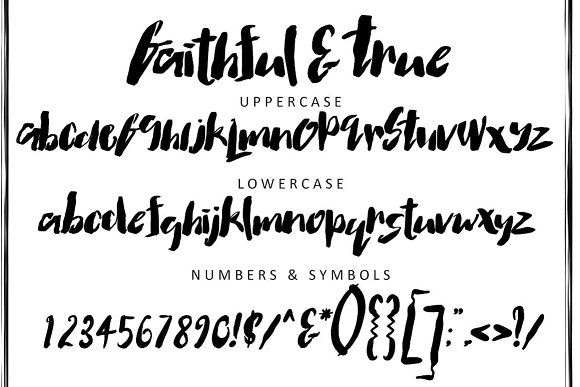
Discover the Charm of Faithful & True Font: A Handcrafted Gem by Creativeqube
In the world of typography, few fonts manage to capture the essence of elegance and charm as effectively as the Faithful & True Font. Created by the talented team at Creativeqube, this beautiful handcrafted font has been making waves among designers, crafters, and typography enthusiasts alike. In this article, we’ll delve into the unique characteristics of Faithful & True, explore its design elements, and discuss how it can elevate your design projects.
The Story Behind Faithful & True
Faithful & True is more than just a font; it’s a piece of art that brings a personal touch to any design project. Crafted with love and attention to detail, this font embodies the spirit of handcrafted typography, offering a distinctive alternative to the standard, machine-generated fonts commonly used in design. Creativeqube, the brainchild behind Faithful & True, aimed to create a font that not only stands out for its aesthetic appeal but also for its versatility and readability.
Design Elements and Characteristics
Faithful & True boasts a range of design elements that make it truly unique. Its handcrafted nature gives it a warm, organic feel that can add a personal touch to any project. Here are some of its key characteristics:
• Handcrafted Elegance: Each letterform in Faithful & True is carefully hand-drawn, giving the font its unique charm and character.
• Versatility: This font is designed to be versatile, making it suitable for a wide range of projects, from branding and packaging to personal stationery and digital content.
• Readability: Despite its decorative nature, Faithful & True maintains a high level of readability, making it perfect for both headings and body text.
• Unique Personality: The font exudes a sense of warmth and personality, allowing designers to convey a more human and approachable tone in their work.
Applications of Faithful & True Font
The applications of Faithful & True are vast and varied. Designers and crafters can use this font to add a touch of elegance and sophistication to their projects. Here are some popular uses:
• Branding and Logo Design: Faithful & True can help create memorable and impactful brand identities that stand out from the competition.
• Wedding and Event Stationery: The font’s elegant and romantic feel makes it perfect for wedding invitations, stationery, and event branding.
• Packaging Design: Add a personal touch to product packaging with Faithful & True, making your products more appealing to customers.
• Digital Content: Use Faithful & True in digital content such as blogs, social media graphics, and website headers to give your online presence a unique and personal flair.
Tips for Using Faithful & True Effectively
To make the most of Faithful & True, consider the following tips:
• Pair with Complementary Fonts: Combine Faithful & True with simpler fonts for body text to create visual interest and hierarchy in your designs.
• Experiment with Colors: While Faithful & True looks stunning in black and white, don’t be afraid to experiment with colors that match your brand or project’s aesthetic.
• Adjust Letter Spacing: For optimal readability, adjust the letter spacing according to the size and application of the font.
Faithful & True by Creativeqube is a testament to the beauty of handcrafted typography. Its unique blend of elegance, charm, and versatility makes it an invaluable asset for designers and crafters looking to add a personal touch to their projects. Whether you’re working on branding, packaging, stationery, or digital content, Faithful & True offers a distinctive and effective way to make your designs stand out. Discover the charm of Faithful & True and elevate your design projects with this beautiful handcrafted font.